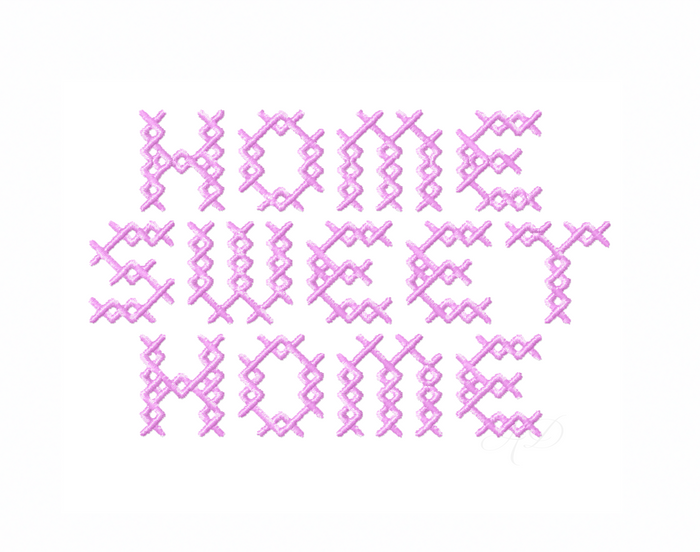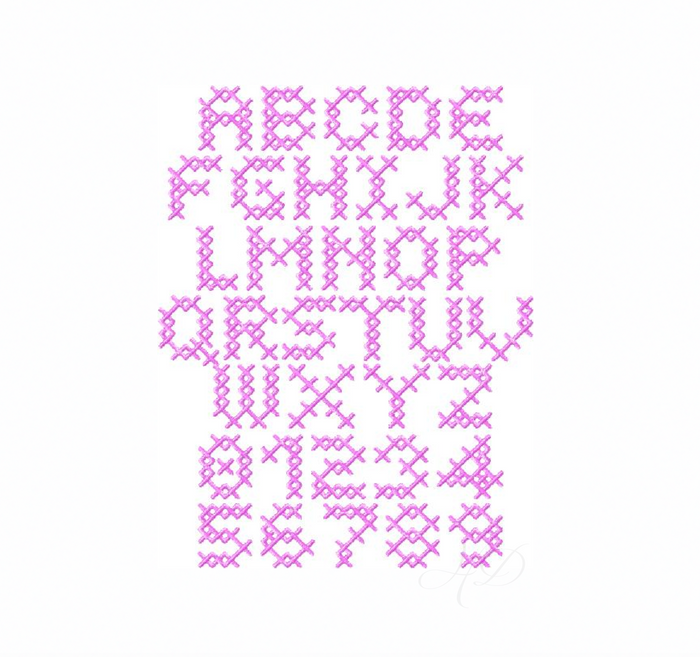
Home Sweet Home Embroidery Font
Transform your crafting projects with the Home Sweet Home Embroidery Font. This elegant, single-color satin stitch font is specifically designed for embroidery machine monogramming. It includes uppercase letters A-Z and numbers 0-9, providing the versatility you need for your personalized creations.